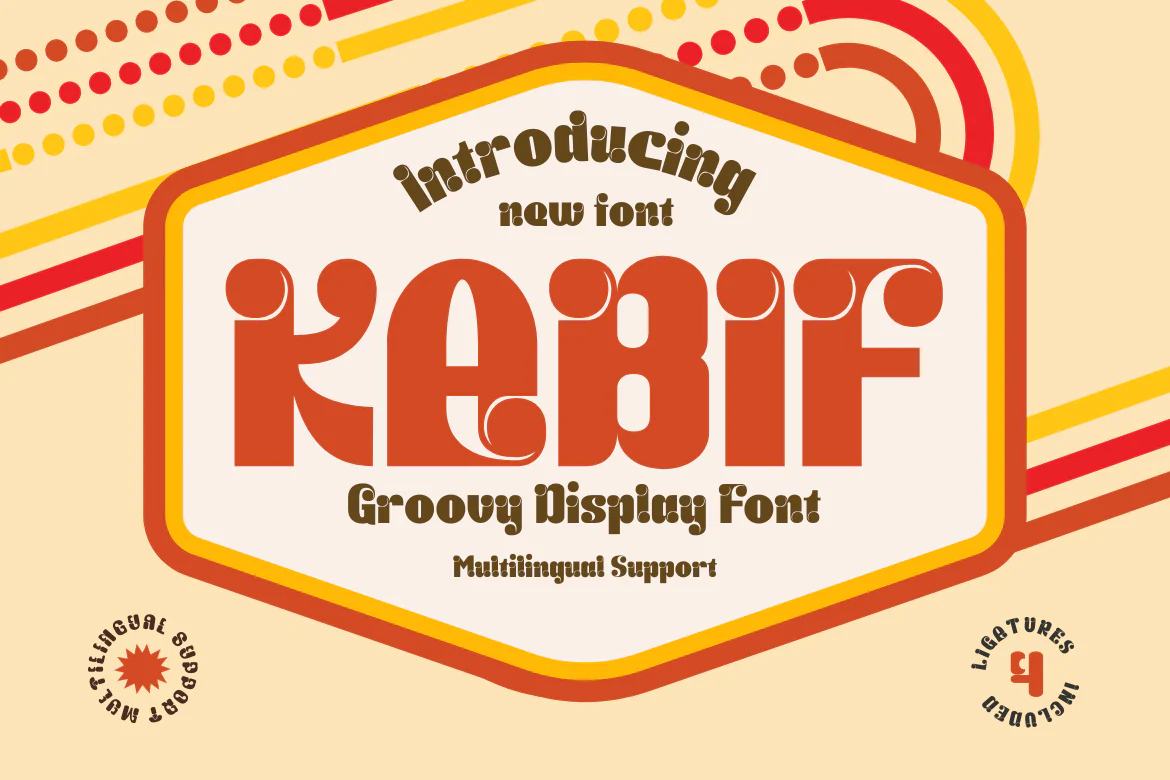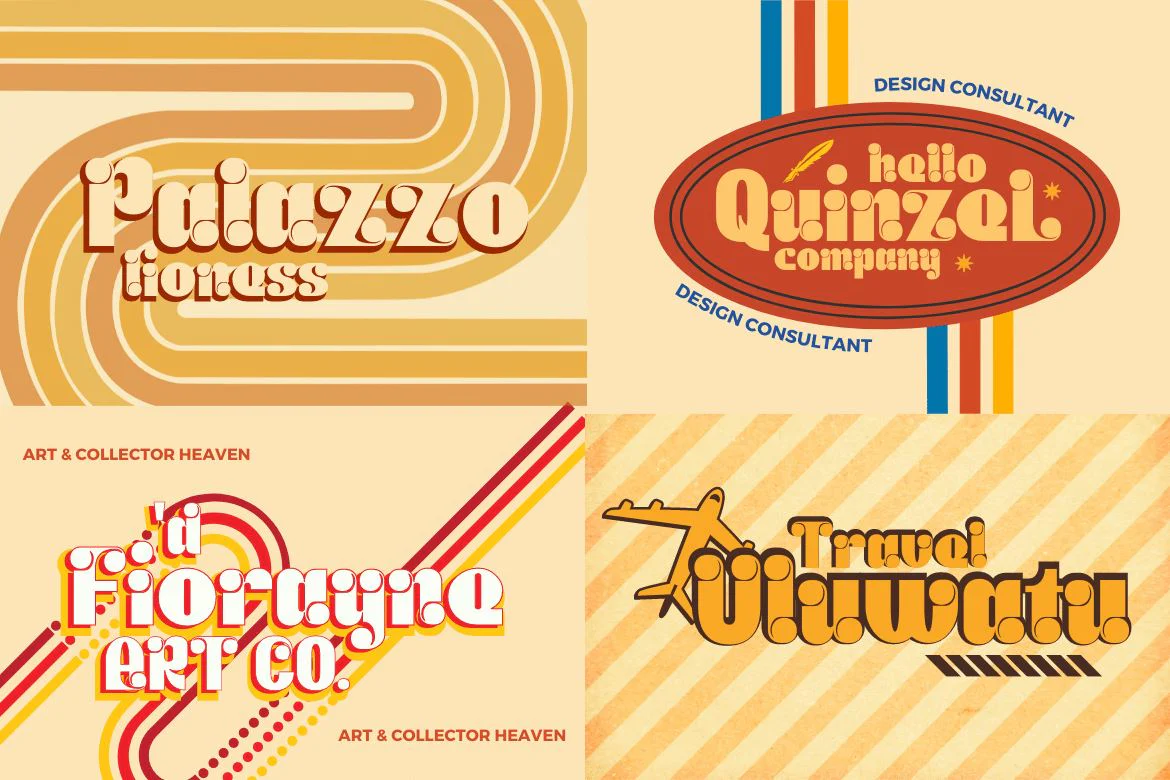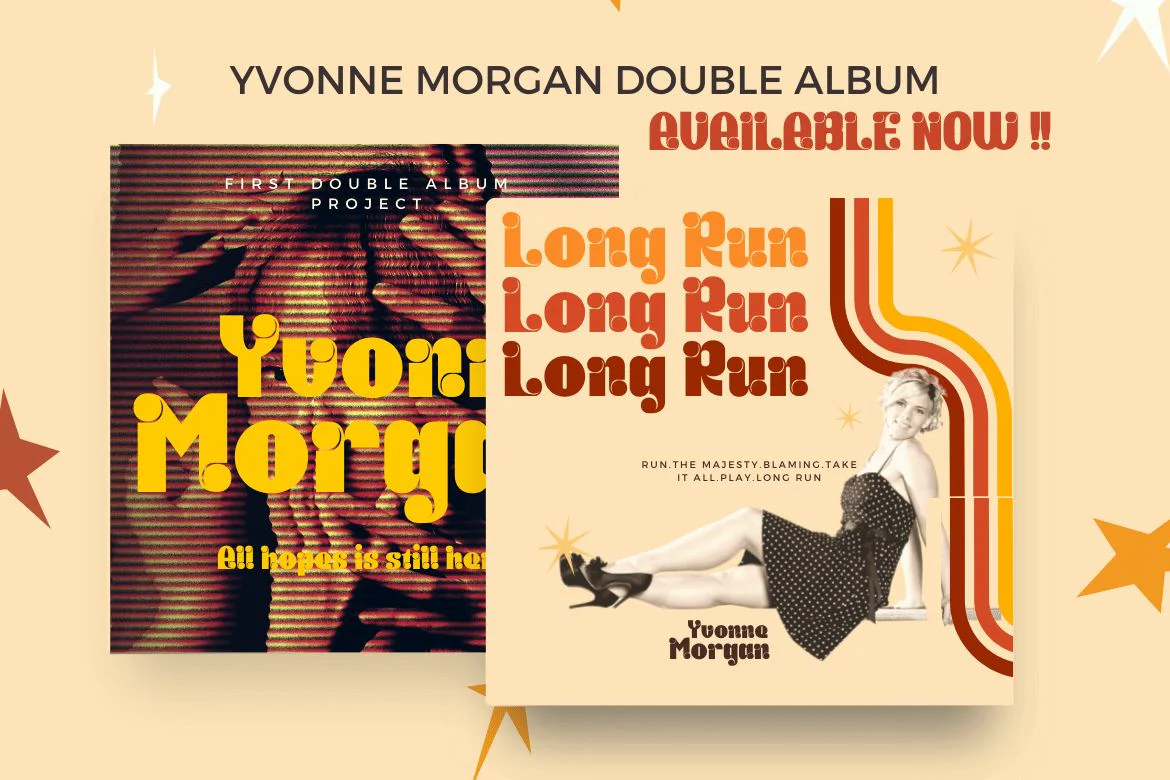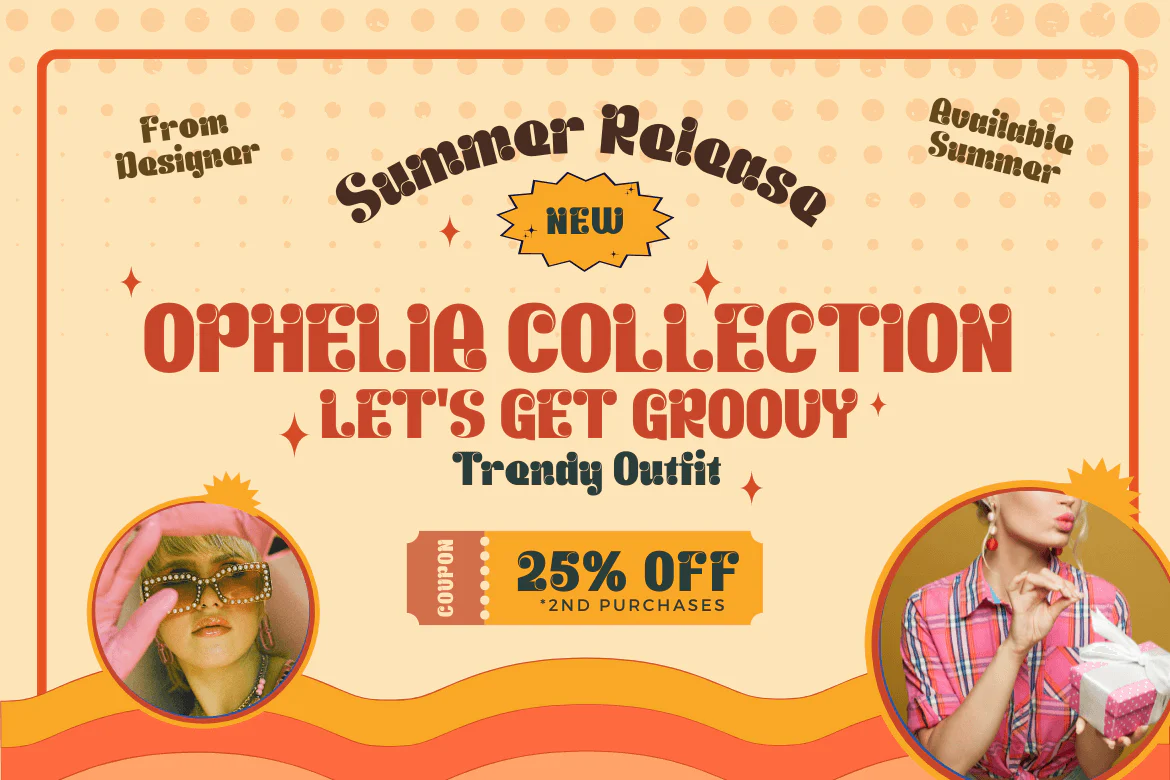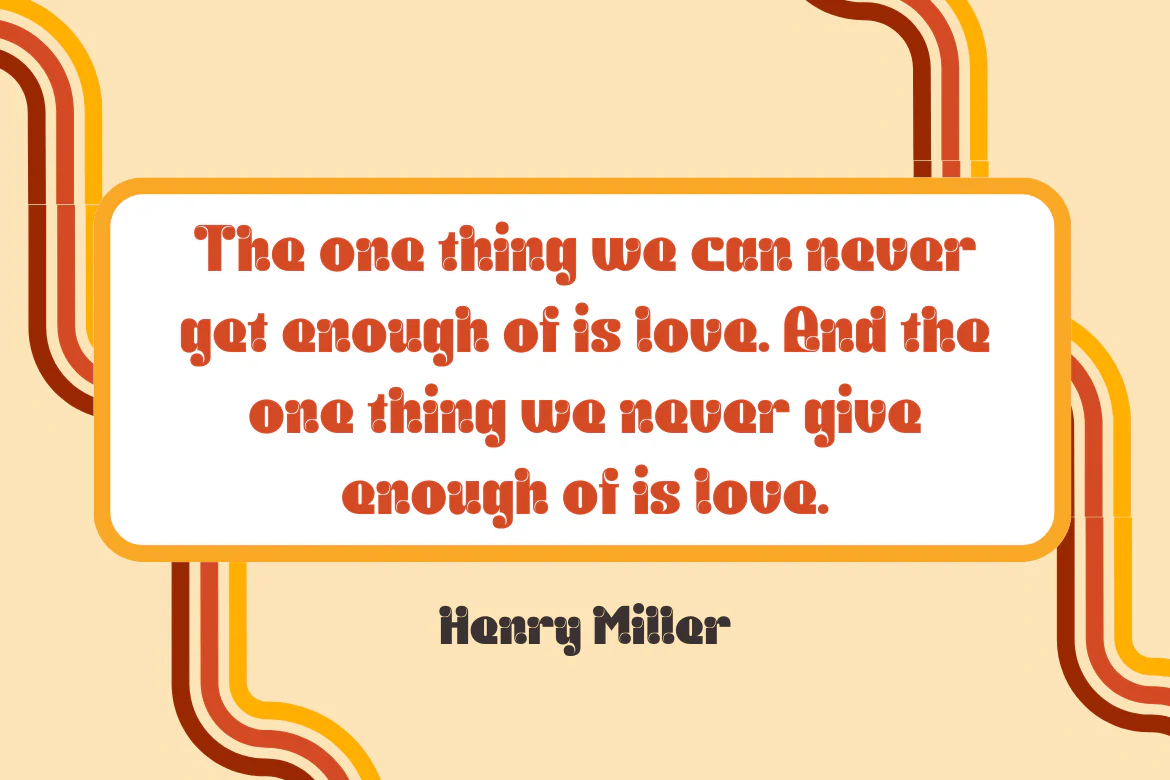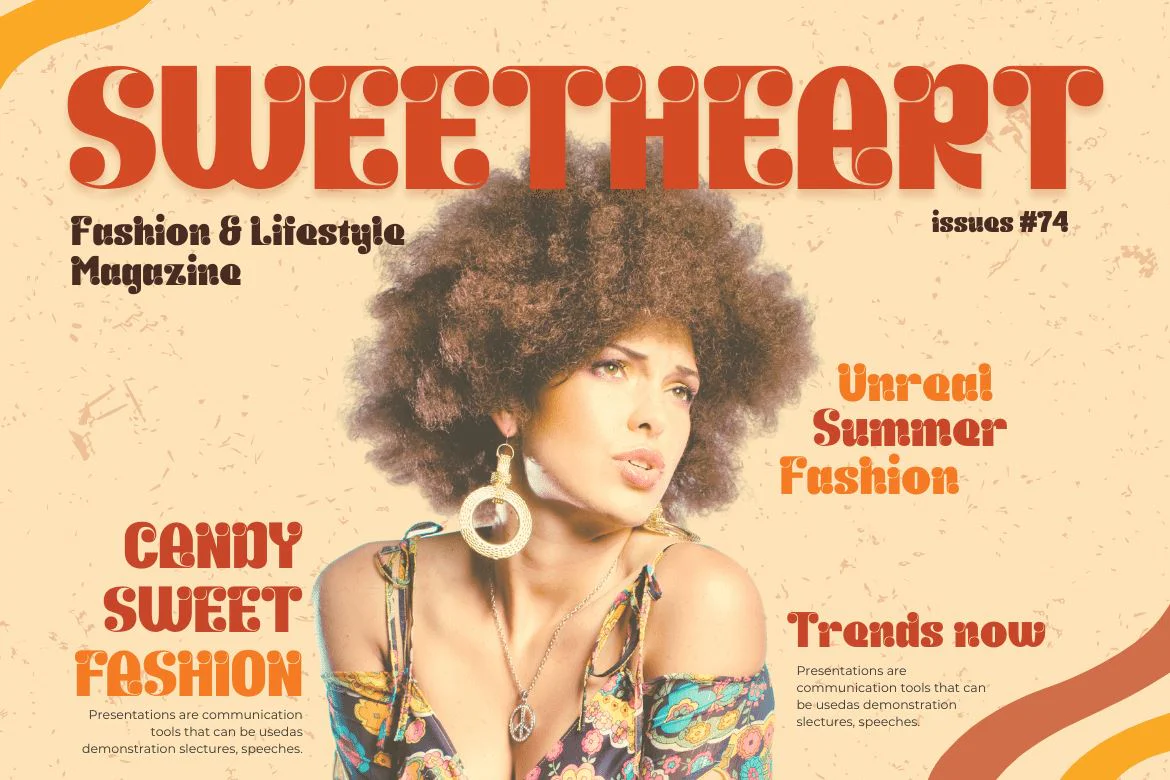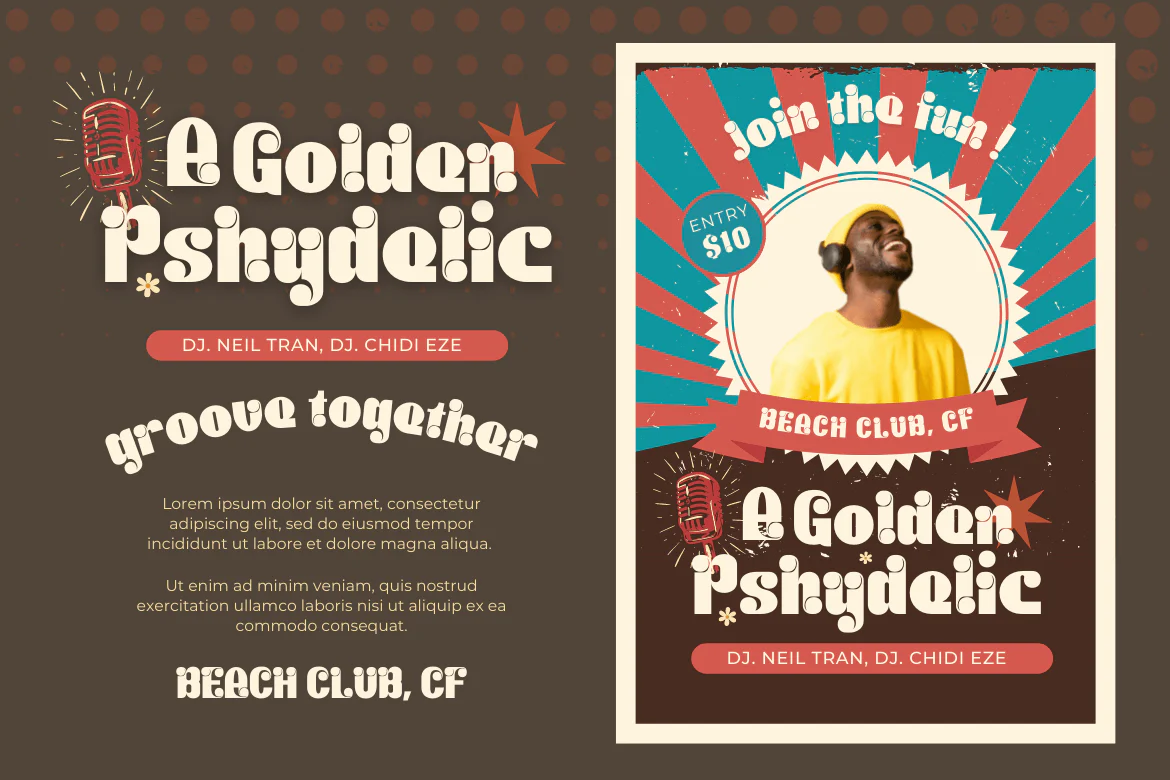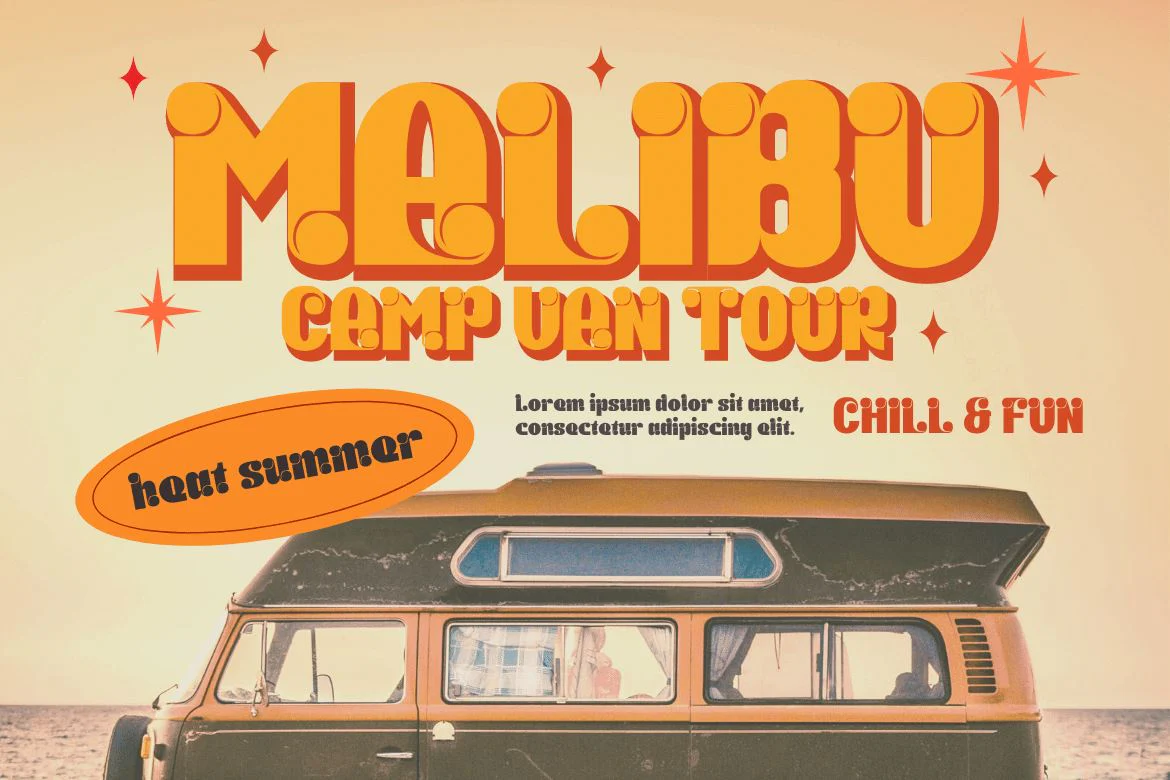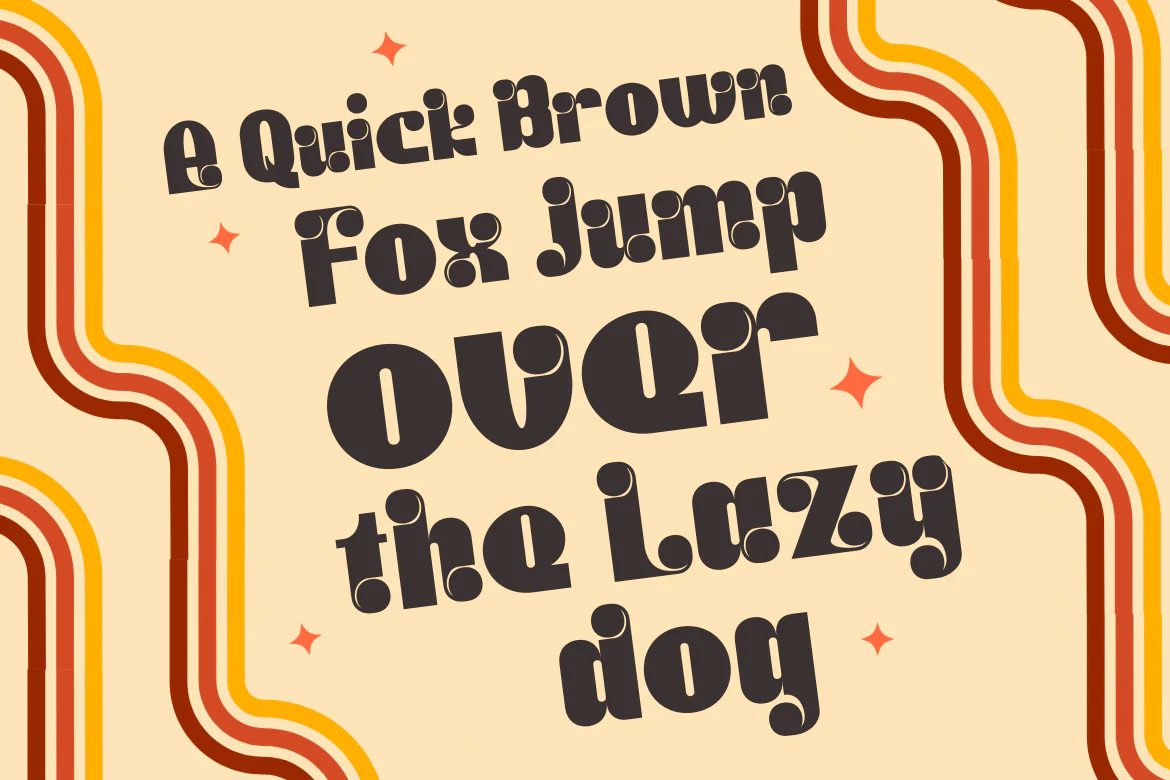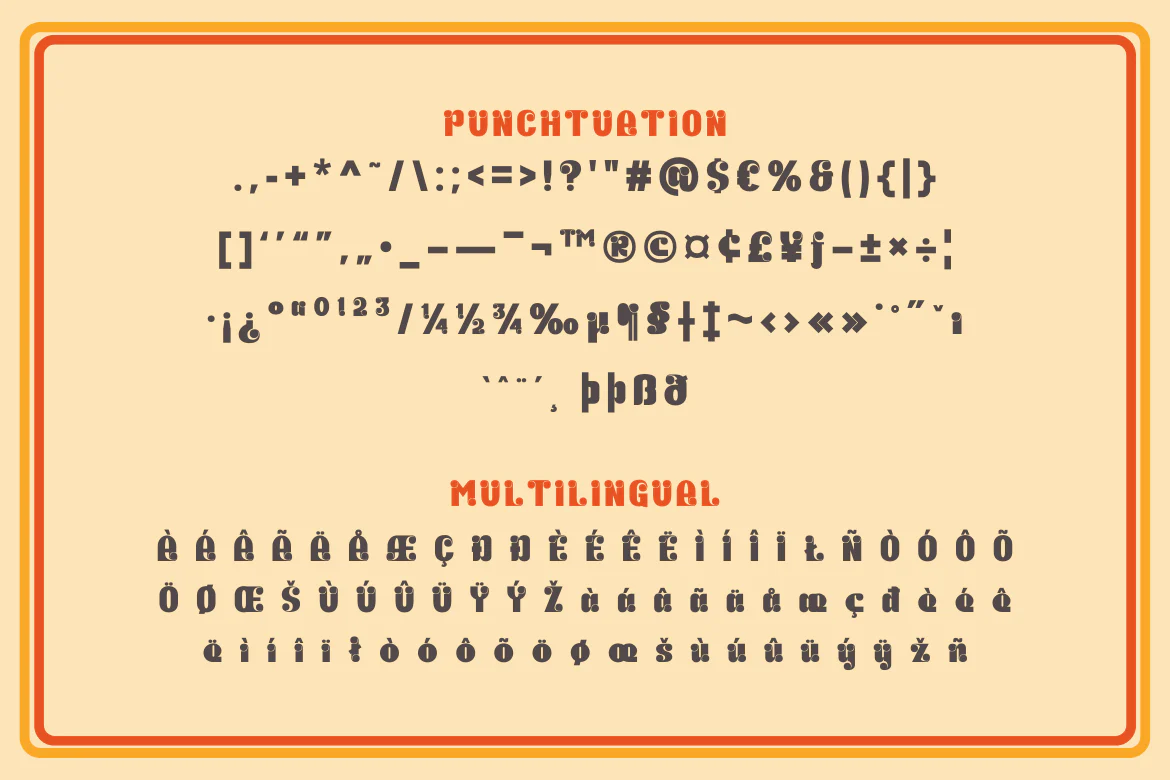
KABIF | Groovy Retro Font
Retro is in again! The distinctive font Kabif will give your work a vintage, extraordinary look. With its erratic, rounded, and geometric shapes, this font typifies popular culture from the 1960s and 1970s.
A cool and simple font with an easy-to-see and easy-to-read typeface is called Kabif. The Kabif font works best for text, headlines, headers, signage, greeting cards, posters, flyers, invitations, packaging, book covers, printed quotes, album covers, and other visual elements.